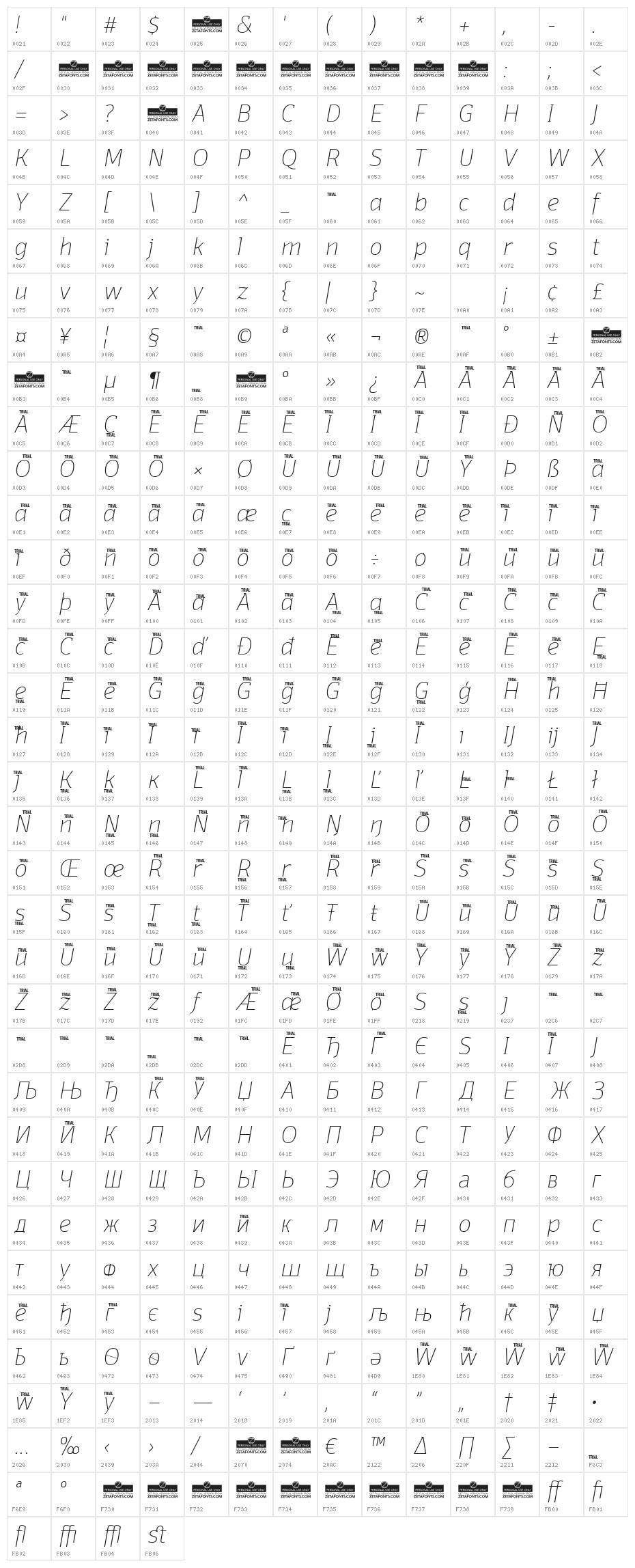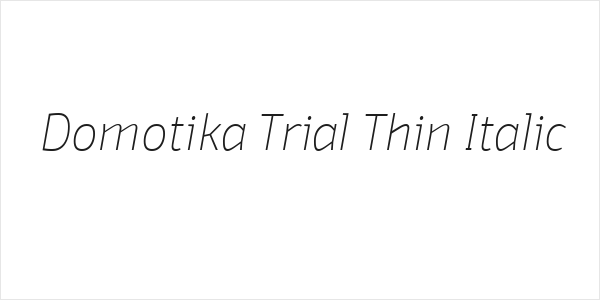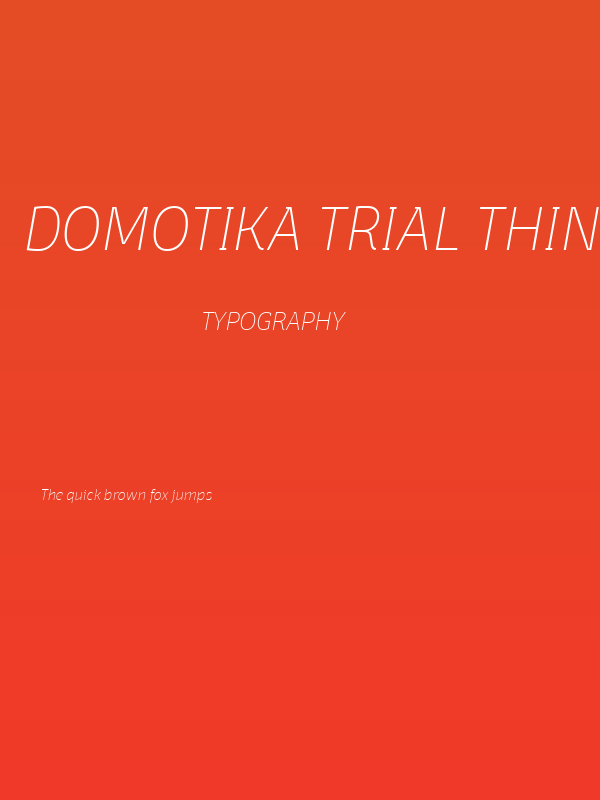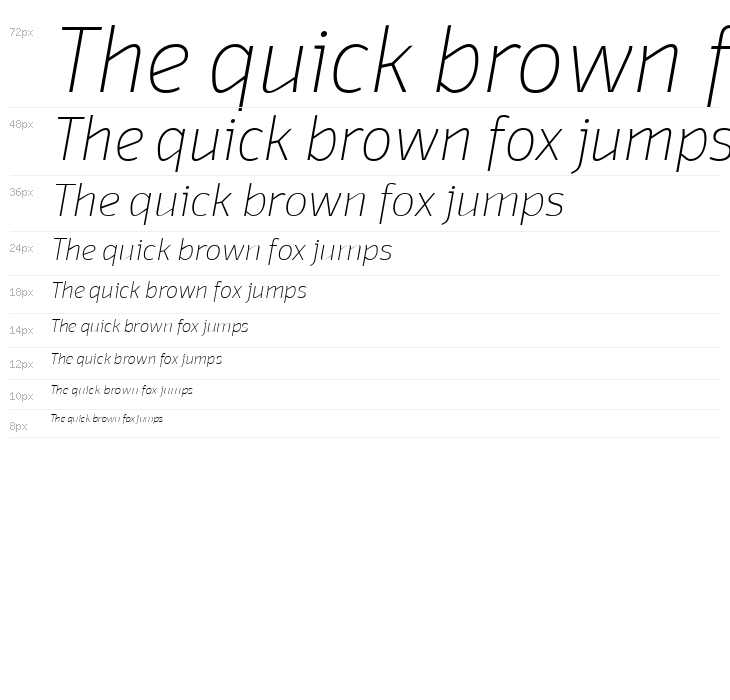
Domotika Trial Thin Italic Font
Domotika Trial Thin Italic Description
This font features a sleek, modern design with a thin, elegant structure. The italic style adds a dynamic and sophisticated touch, making it suitable for contemporary design projects. The characters are slightly slanted, providing a sense of motion and fluidity. The thin strokes and clean lines contribute to a minimalist aesthetic, while the consistent spacing ensures readability. This font is ideal for projects that require a refined and stylish appearance, such as branding, editorial design, and digital interfaces.
| Proposed Projects | Ideal for branding, editorial design, digital interfaces, and modern advertising. |